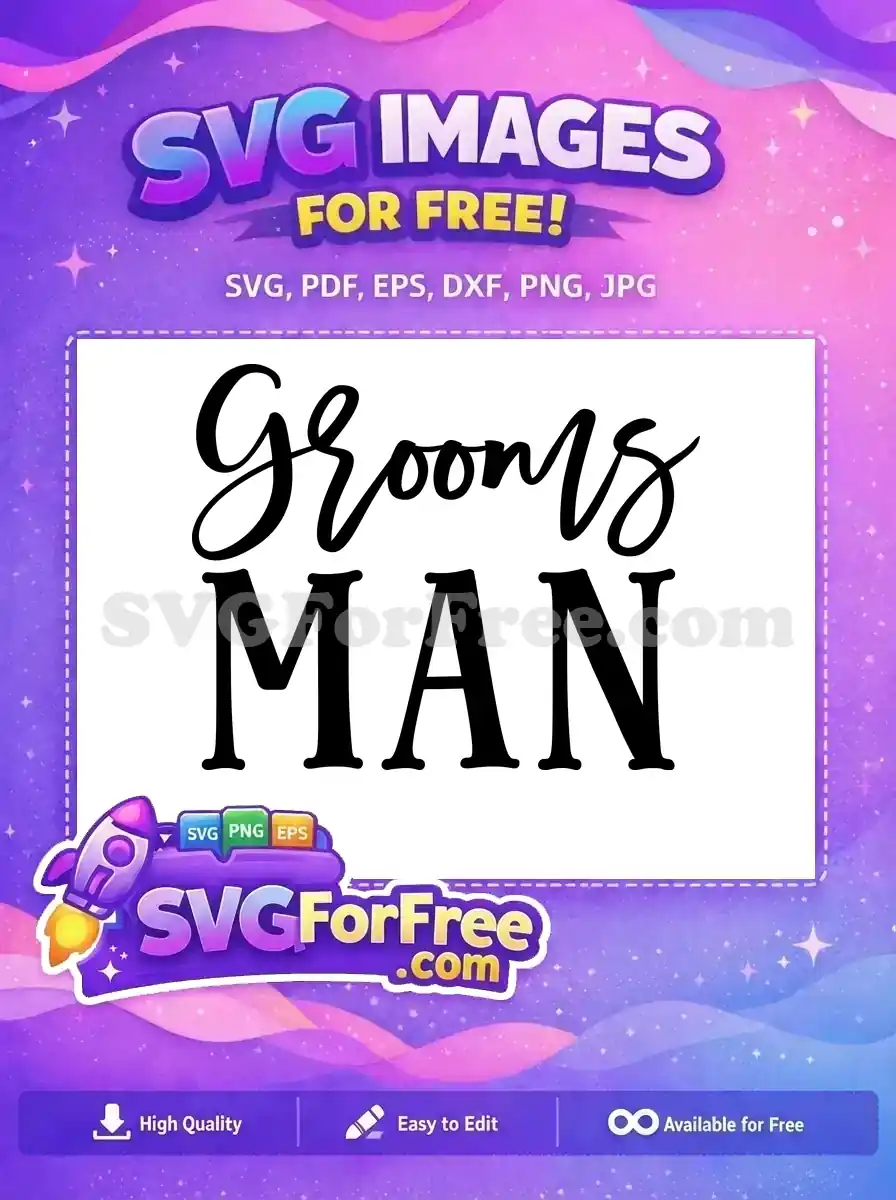
Free Cursive Groomsman Font Free Bold Man Text Bridal Designs Free SVG – Instant Download
Get this free ‘Grooms MAN’ SVG design for wedding parties. Perfect for apparel, gifts, and decor. A versatile free design!
Free Cursive Groomsman Font Free Bold Man Text Bridal Designs Free SVG